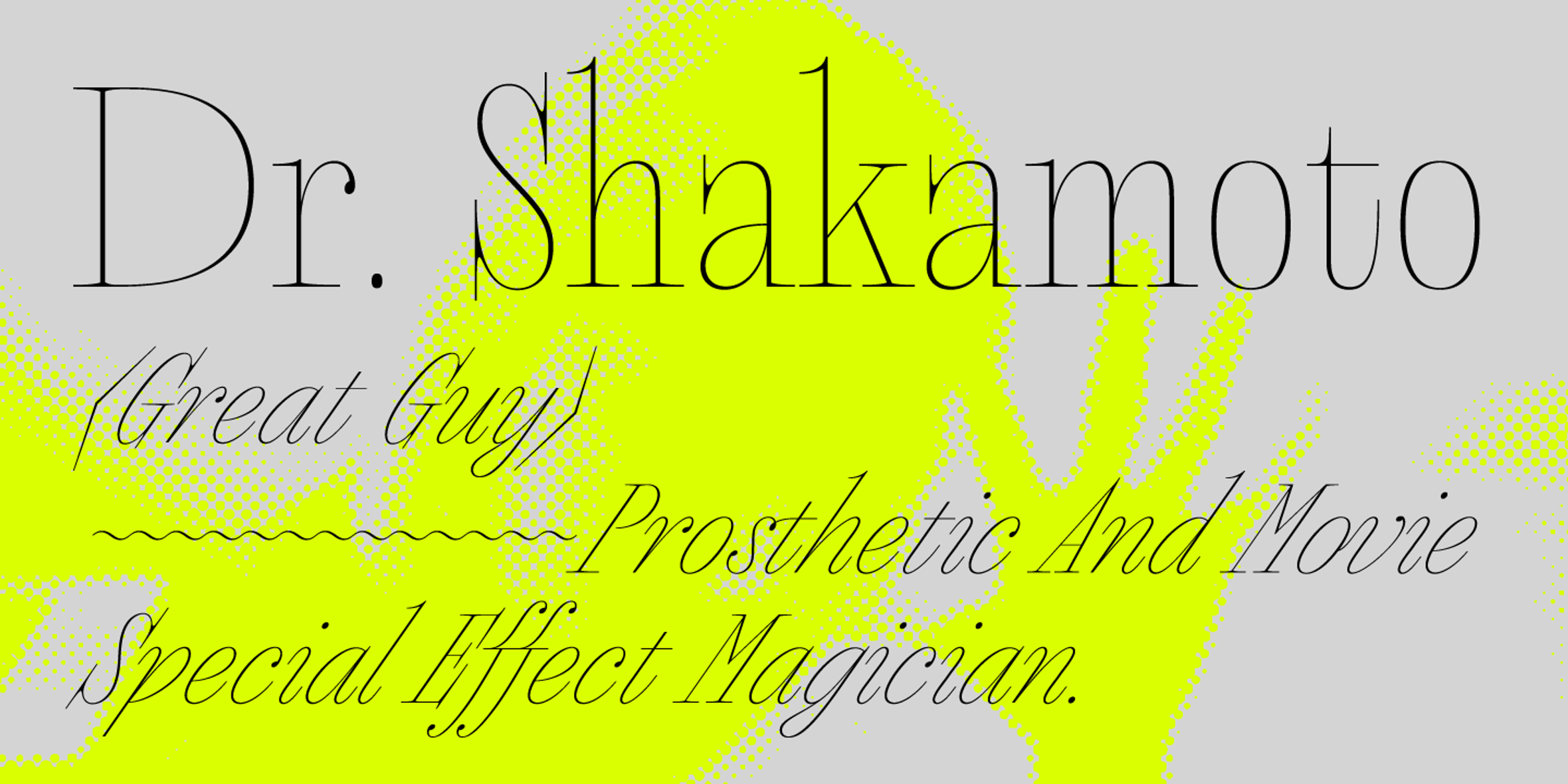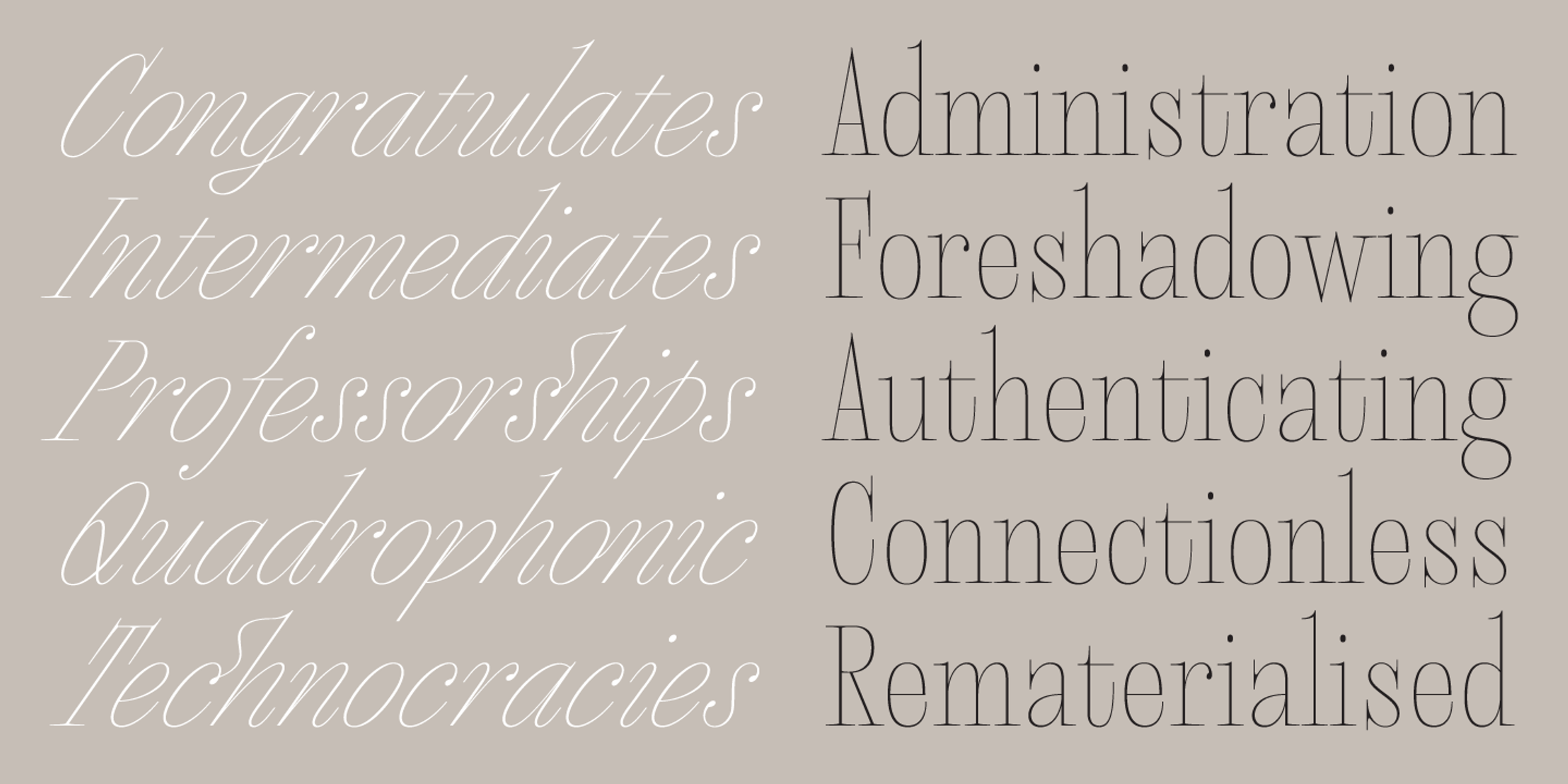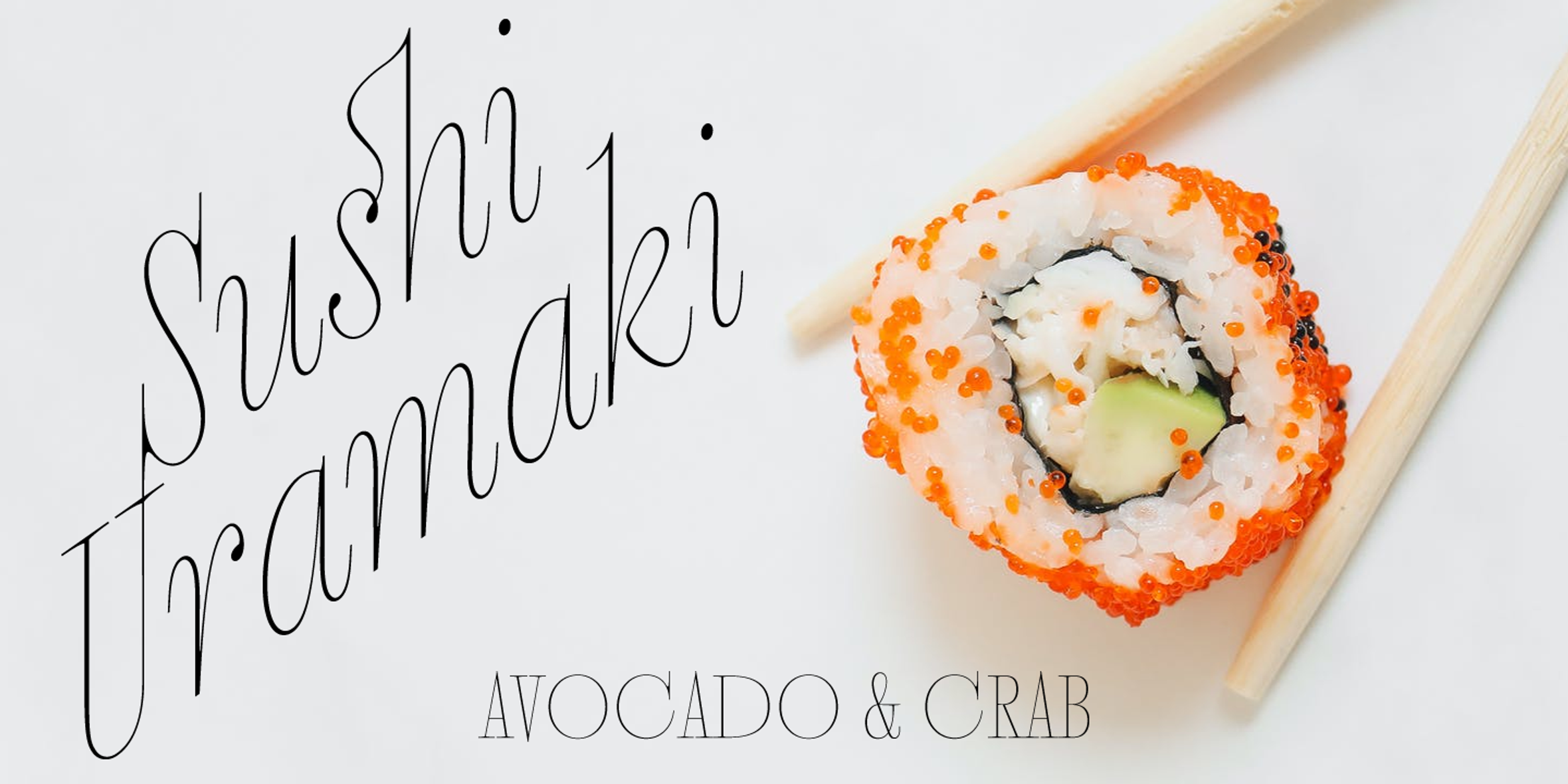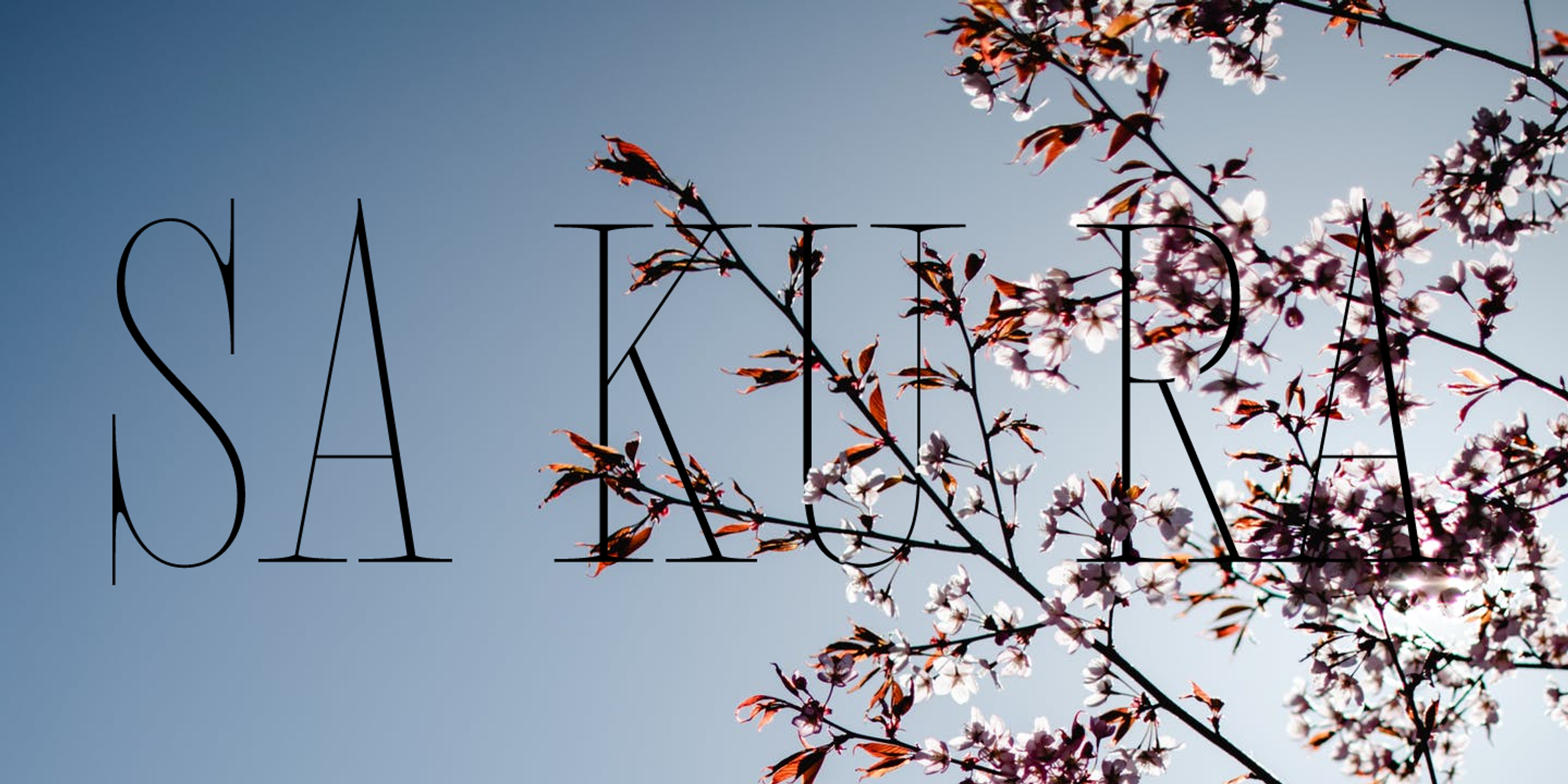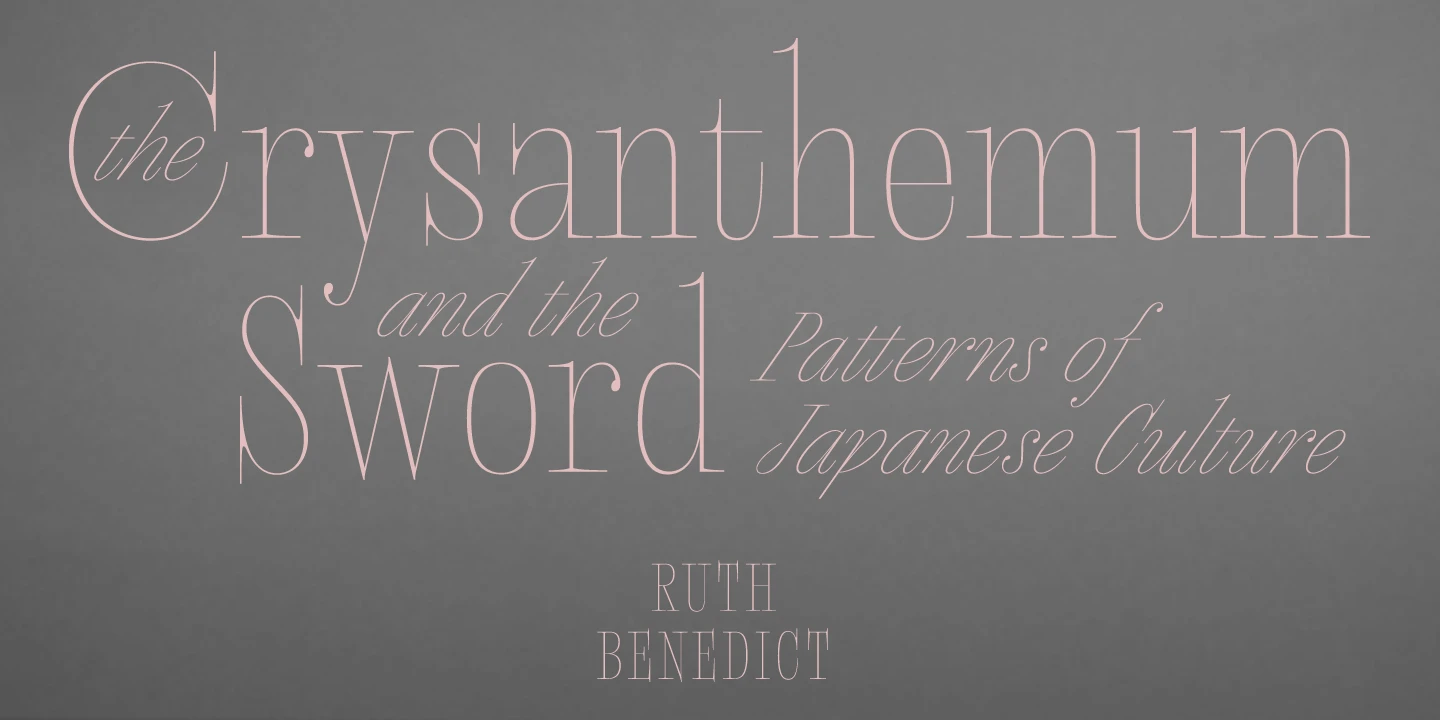
Megumi Font Family
Megumi Ultra Light
Megumi Ultra Light Italic
Megumi
Megumi is a headline serif design commissioned by a fashion and lifestyle magazine with a heavy Japanese influence; it never happened. The uppercase letters are narrow and have an almost monospaced aesthetic, being influenced by Romaji letterforms. The serif is sculptural, and the italic is sinuous. Graphic designers will use it editorially, but it will also look sumptuous on museum displays and posters, couture labels and perfumes, and even postmodern book covers and title pages.
- Ordinal Numerals
- Stylistic Alternates